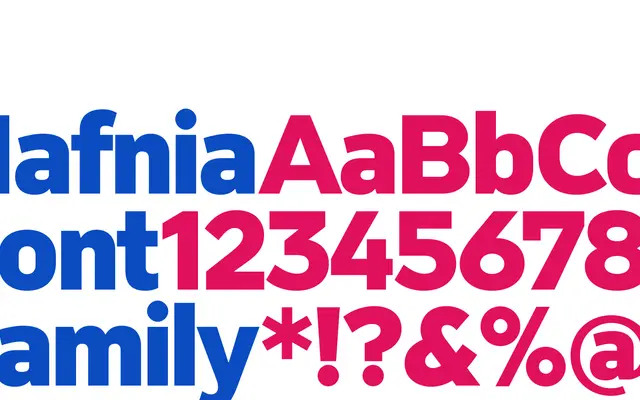
Hafnia Sans
A humanist sans from Copenhagen-based Playtype, named after the Latin word for Copenhagen.
Hafnia Sans takes its name from the Latin for Copenhagen, placing it firmly within Playtype's Nordic design sensibility. The scraped page content offers little technical detail, but the foundry's wider output suggests a clean, characterful sans suited to editorial and identity work. Further detail on weights, widths and language support is unavailable from the provided source.
The name and foundry context suggest a contemporary humanist sans from Playtype's Copenhagen-based studio, with the page content hinting at an expressive, character-driven design sensibility.